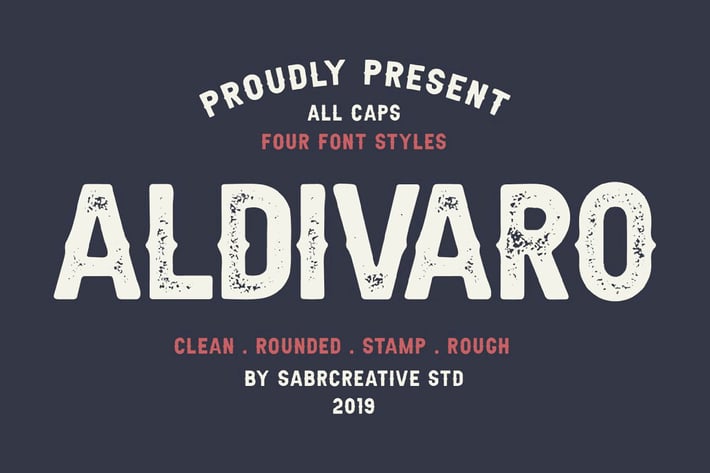
Aldivaro Font Family + 4 Style Fonts
Aldivaro is a bold vintage display font family built for retro logos, craft labels, americana branding, and high impact graphic design. With 4 distinct styles Clean, Rounded, Rough, and Stamp, Aldivaro covers everything from polished wordmarks to gritty textured graphics in one compact font pack.
- 4 font styles: Clean, Rounded, Rough, Stamp
- Bold all-caps letterforms with strong vintage character